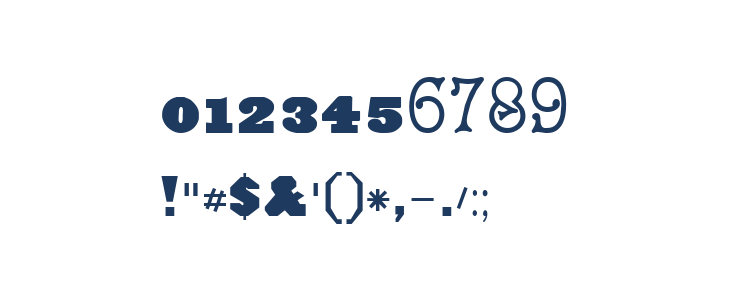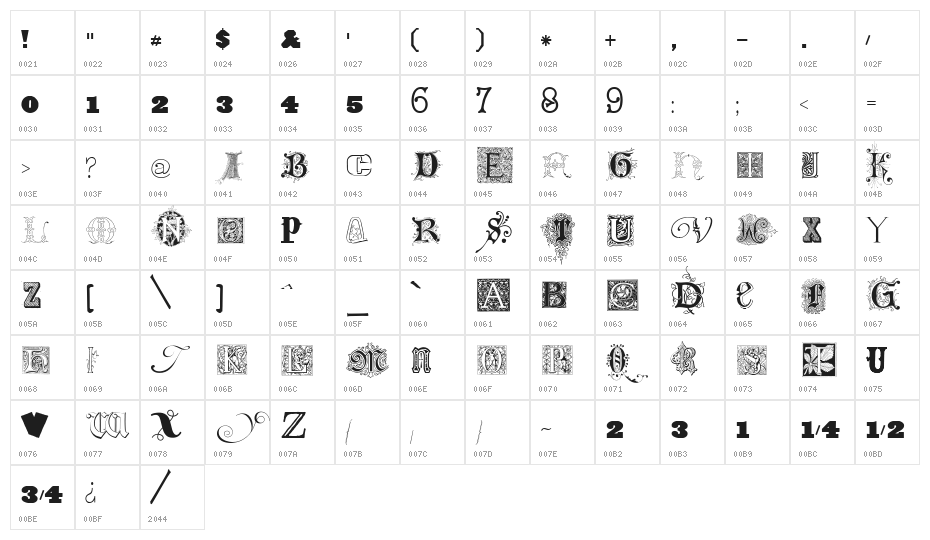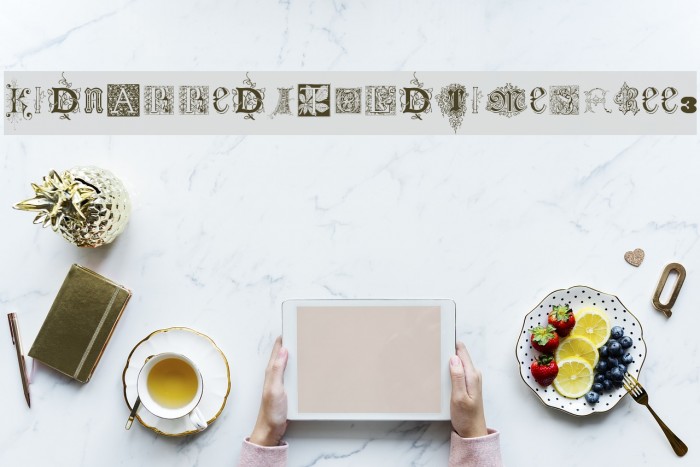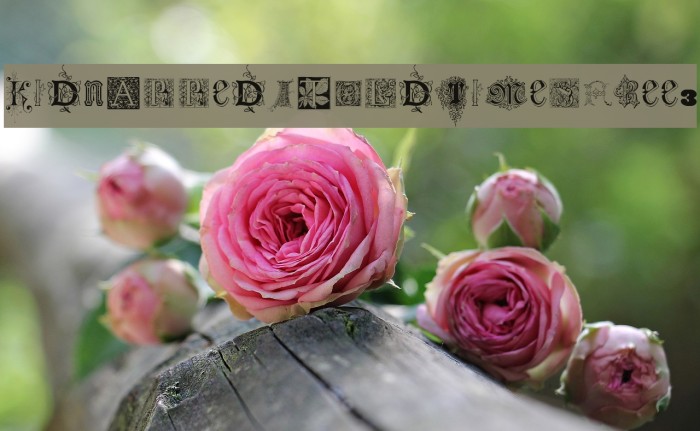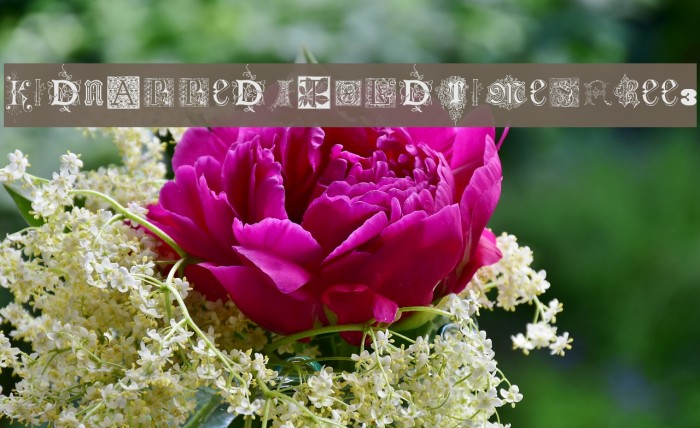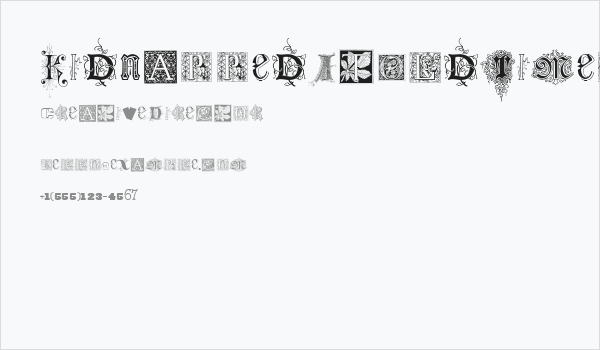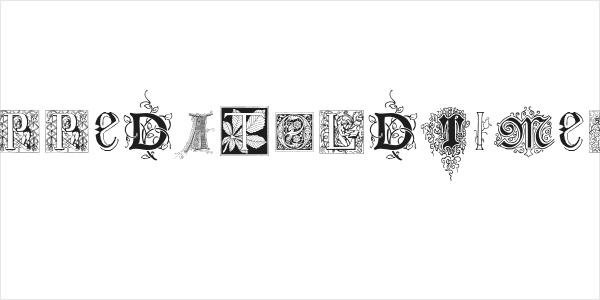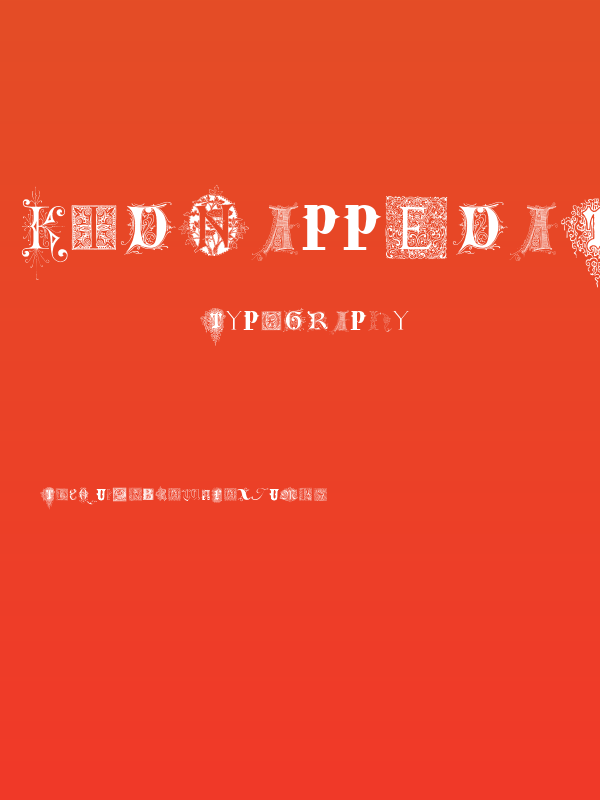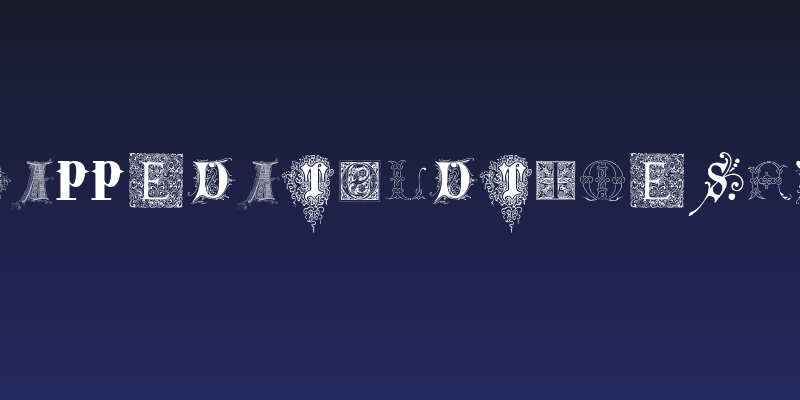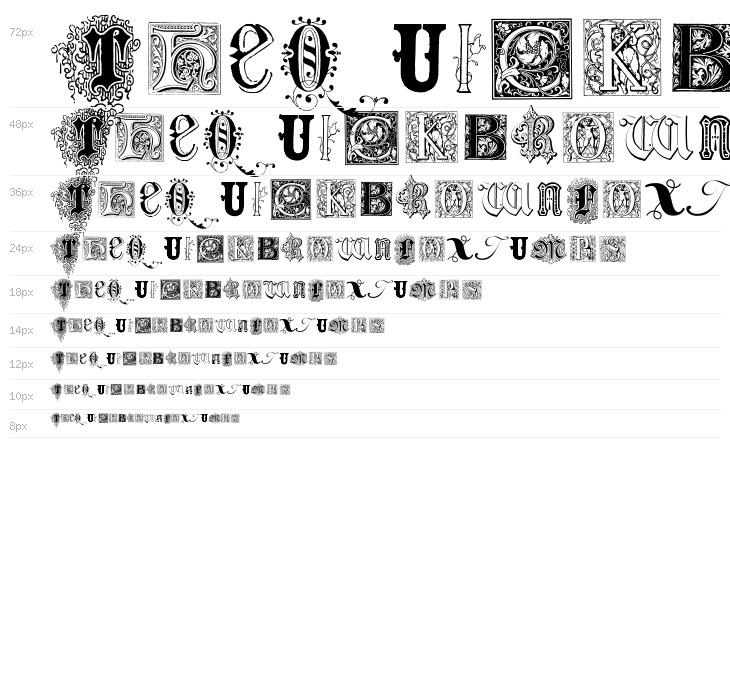
Kidnapped At Old Times Free 3 Font
Kidnapped At Old Times Free 3 Description
This font is a highly decorative and ornate typeface that features intricate designs within each character. The uppercase letters are embellished with elaborate patterns, giving them a vintage and artistic appearance. The lowercase letters maintain a similar style, with some characters featuring flourishes and unique shapes. The numbers are bold and distinct, providing a strong visual presence. Special characters are also included, each with its own decorative flair. This font is ideal for projects that require a historical or artistic touch, offering a unique and eye-catching aesthetic.
| Use Case | Headlines, Logos, Decorative text |
| Proposed Projects | Ideal for vintage posters, artistic book covers, historical event invitations, and decorative signage. |